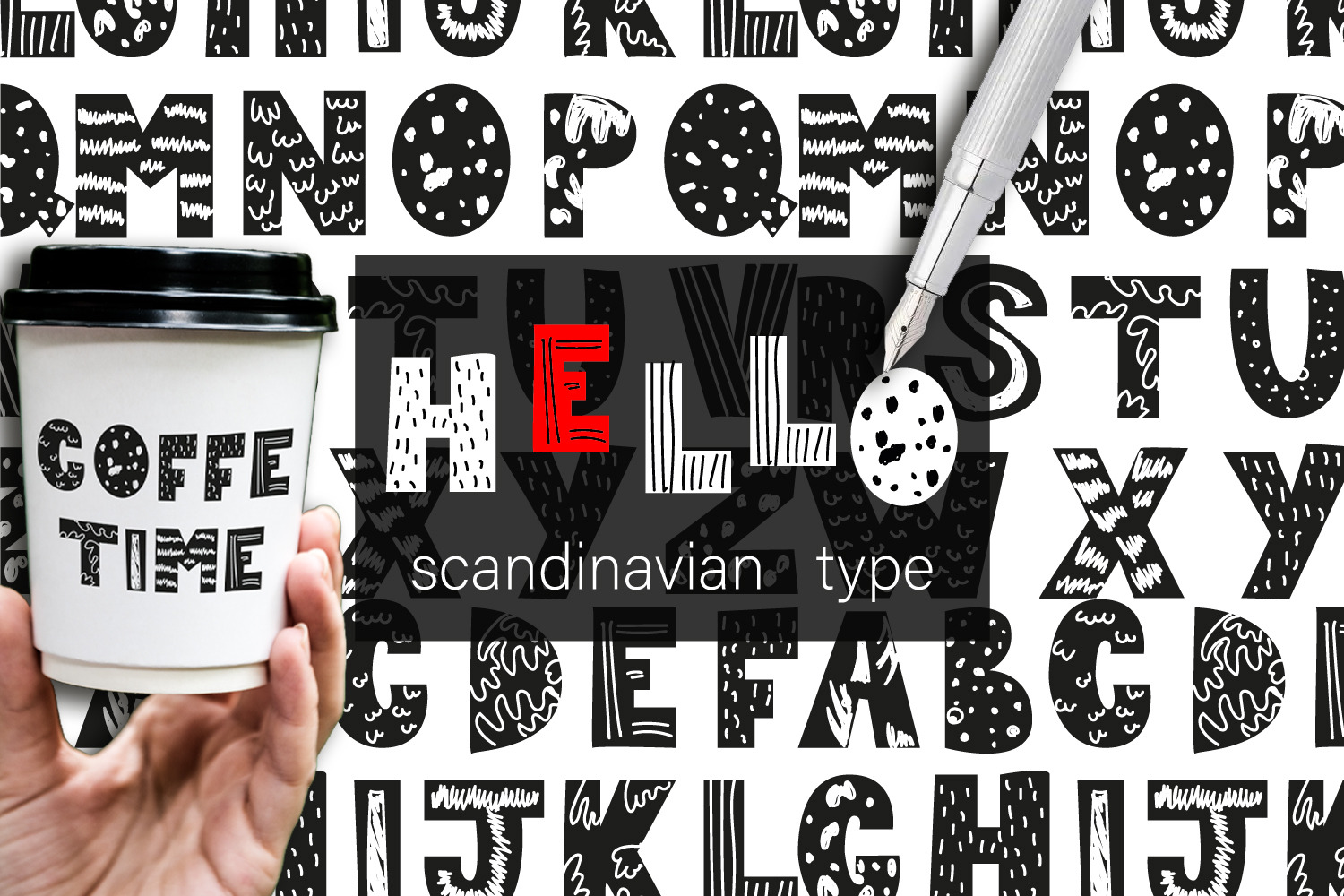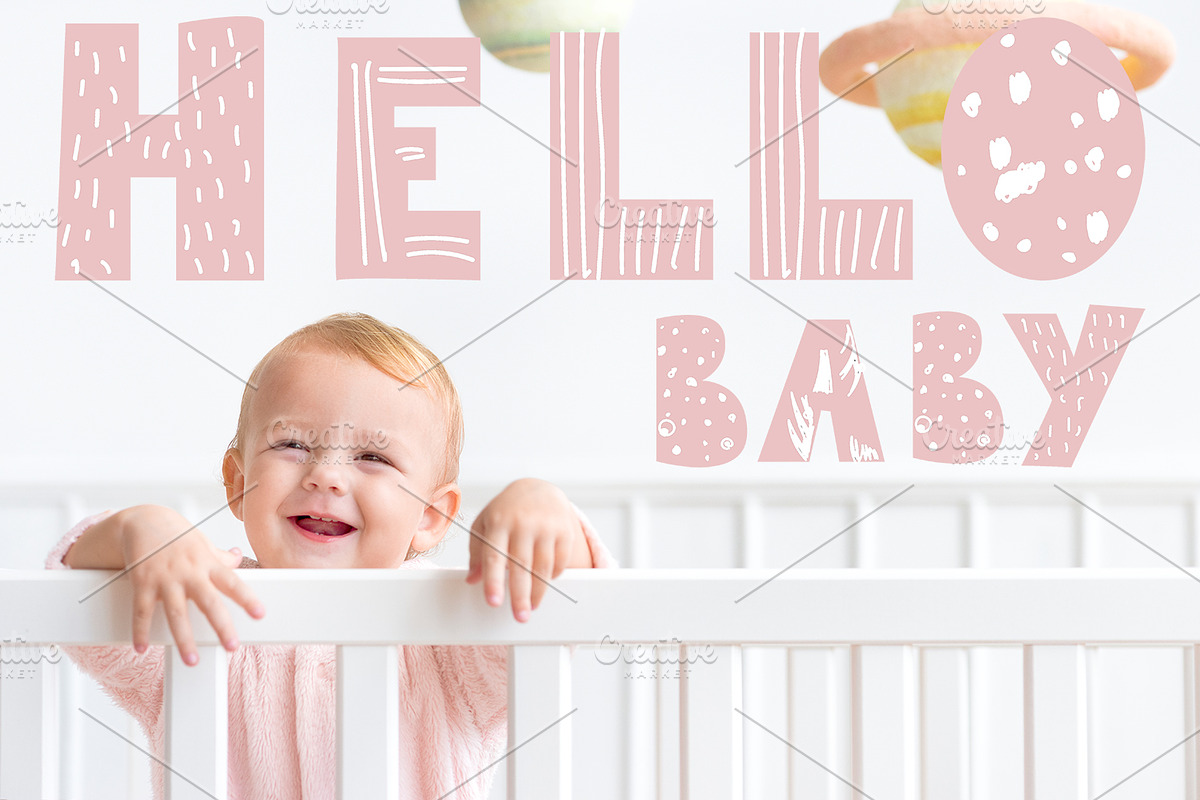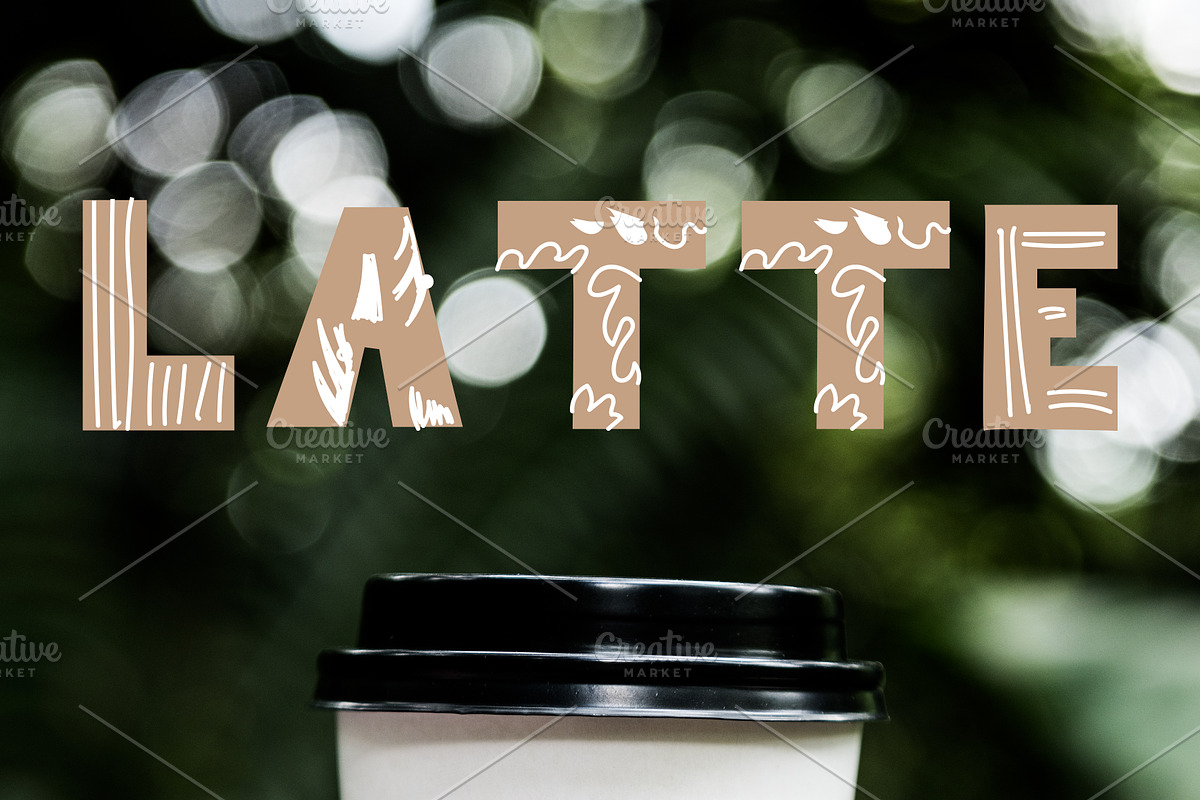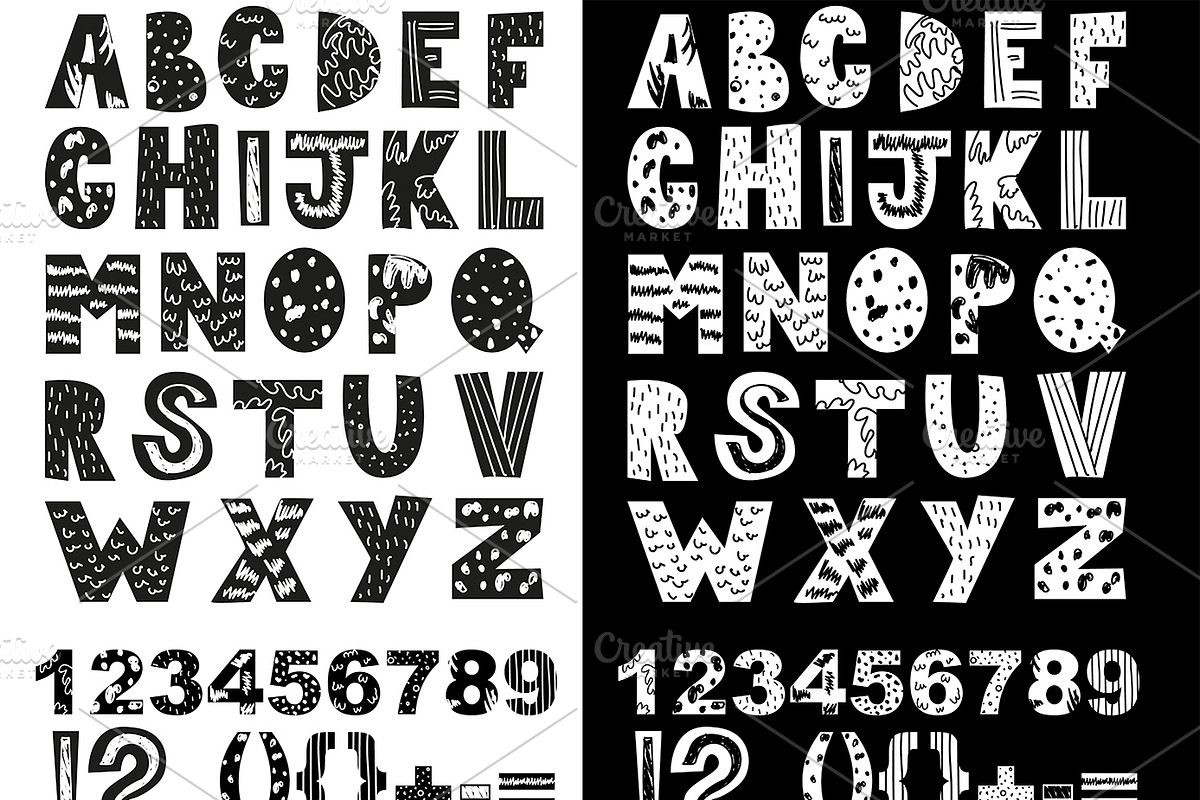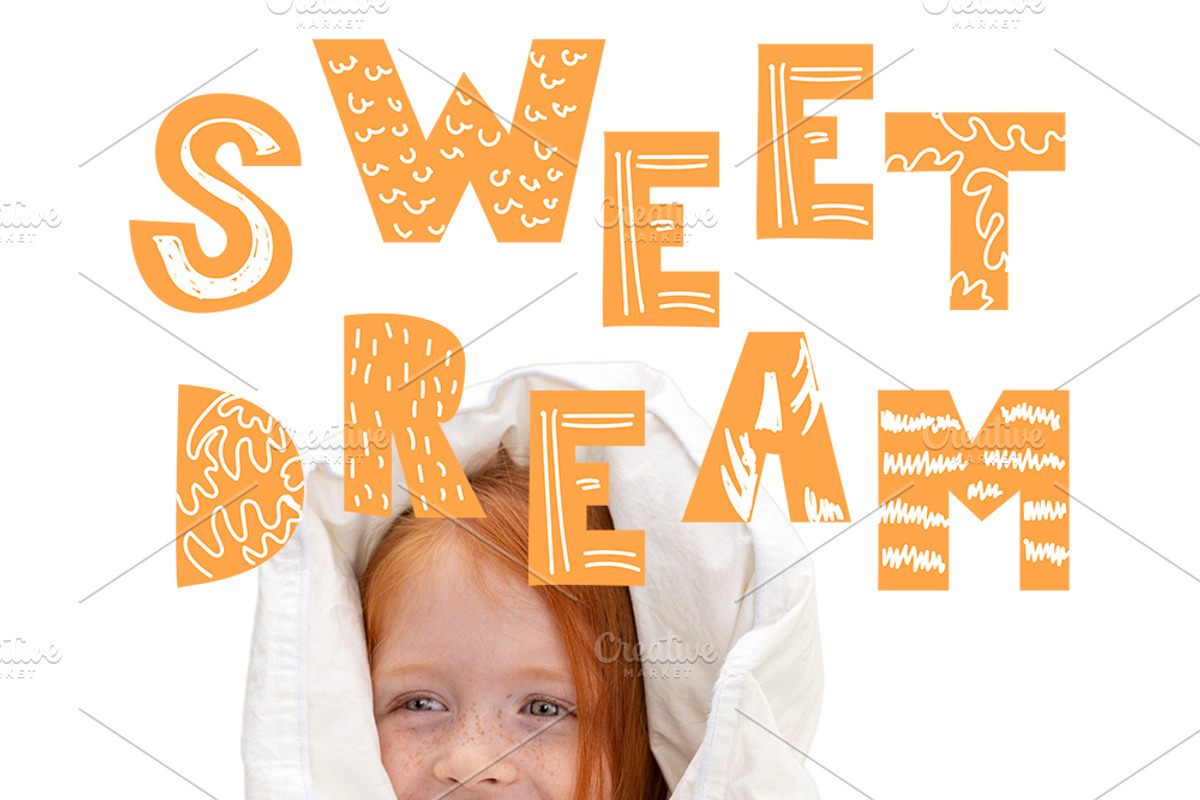
Scandinavian font
Аont is created in the Scandinavian style. This script is perfect for cards, prints, logos, invitations, arrange illustration and decoration. It has upper and lower case letters, numbers, special characters, accents. Perfect for Children!